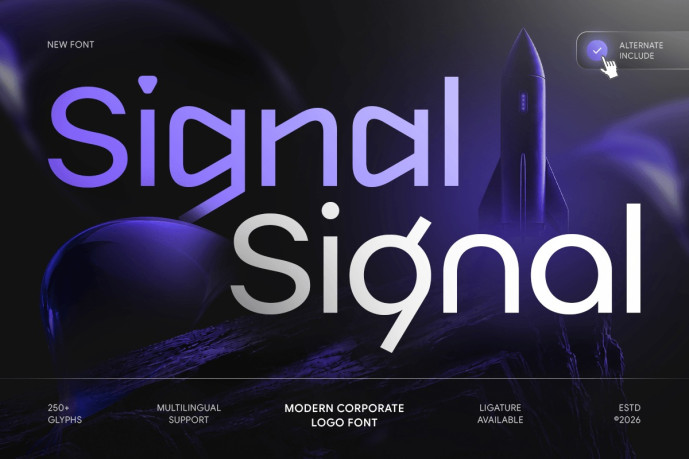
Signal – Modern Logo Font
Designer: SelarasWP
Signal – Modern Corporate Logo Font Signal is a modern corporate logo font designed to deliver professionalism, clarity, and a refined visual identity. Featuring clean geometric letterforms, balanced proportions, and a contemporary minimalist style, Signal is perfect for corporate branding, business logos, websites, presentations, packaging, and professional design projects.
Blending modern typography with a sophisticated corporate aesthetic, Signal creates a trustworthy and memorable visual presence. Its structured letterforms ensure excellent readability while maintaining a sleek and distinctive appearance, making it ideal for technology companies, startups, consulting firms, agencies, and premium business branding.
Signal – Modern Corporate Logo Font Features:
Modern corporate style with clean geometric aesthetics
Professional letterforms with balanced visual proportions
Ideal for logos, branding, websites, presentations, and packaging
Uppercase, lowercase, numerals, and punctuation included
Excellent readability with refined modern construction
Perfect for technology, startups, agencies, and corporate branding
Build a confident brand identity with Signal – the modern corporate font crafted for professional and timeless visual communication.